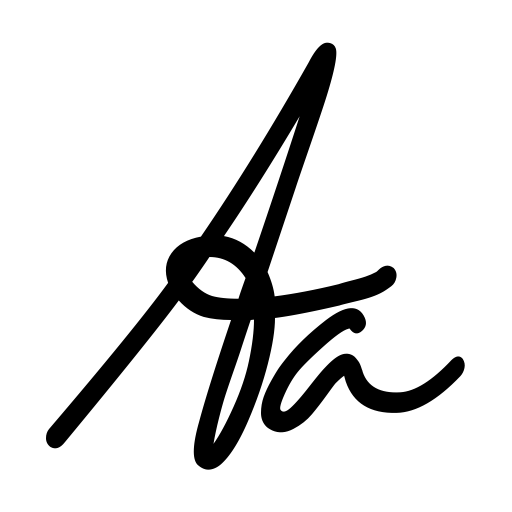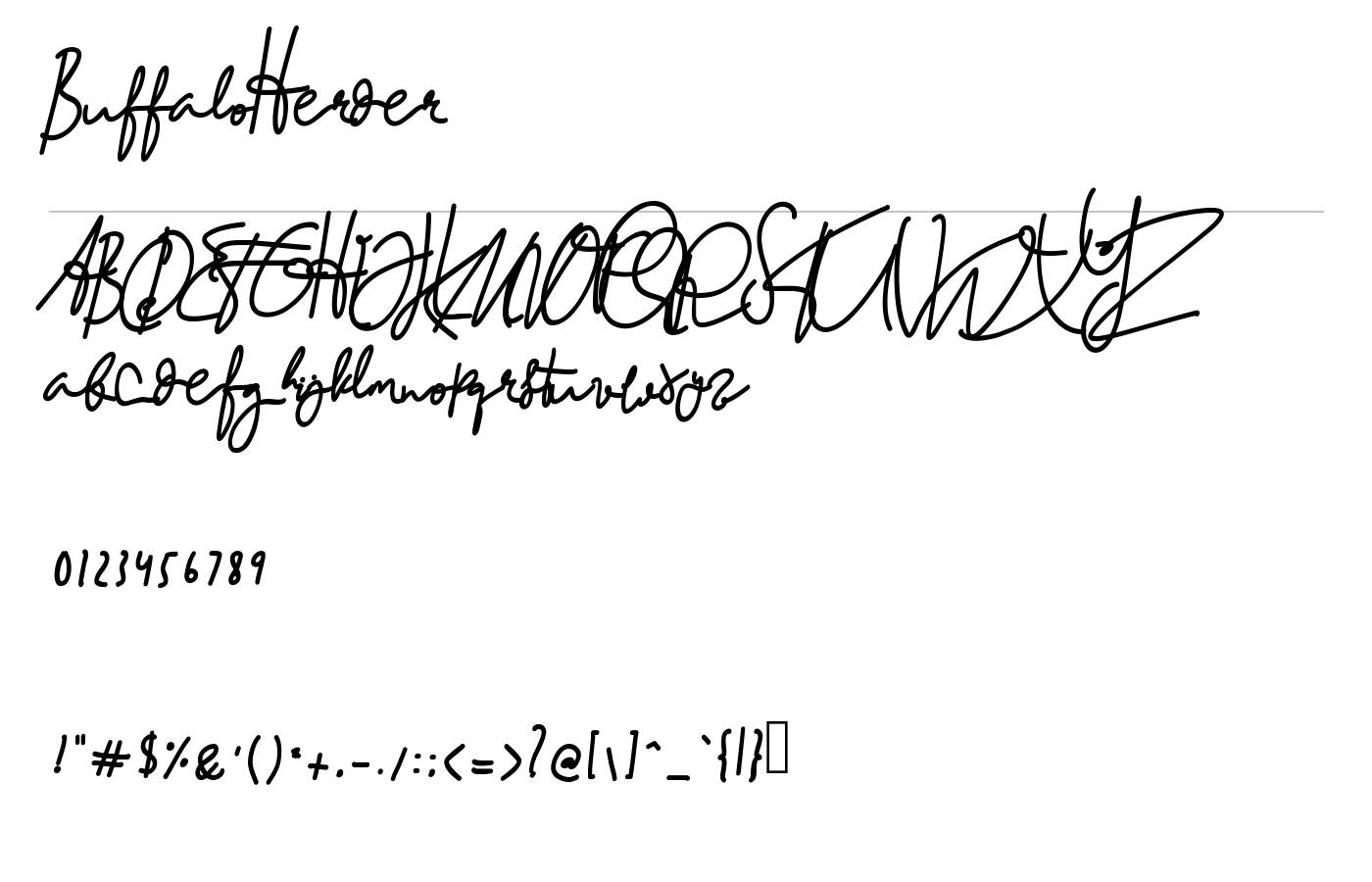
BuffaloHerder is a loose, handwritten script font with a casual and spontaneous feel, featuring uneven strokes and a lively flow that mimics natural handwriting. Its tall, narrow characters and irregular letterforms give it a playful, expressive personality, making it ideal for creative projects that want to convey authenticity and informality. This font works best for personal branding, artistic logos, and informal titles where a touch of individuality and energy is desired.
BuffaloHerder Font
About BuffaloHerder Font
| Font family | BuffaloHerder Font |